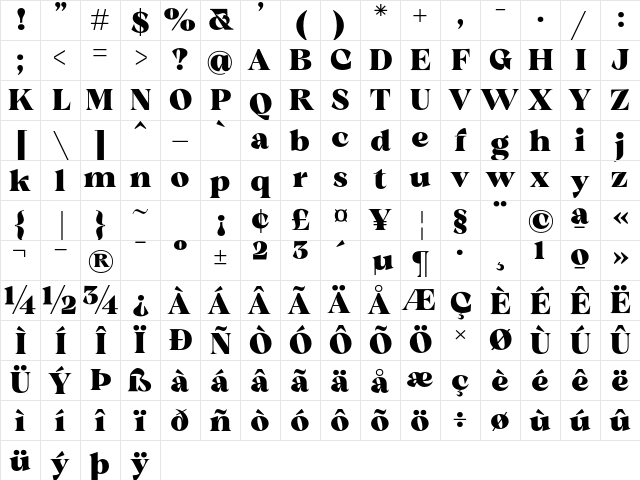
Complete Winzer Serif PERSONAL USE Black Regular glyph index. Displaying only characters natively supported by Winzer Serif PERSONAL USE Black Regular font.
Winzer Serif PERSONAL USE Black carries the refined structure of traditional serif typography, with bracketed terminals and considered proportions that communicate credibility and craft.
Pro Tip: Use Winzer Serif PERSONAL USE Black for editorial body copy and considered headline work. Pair with a neutral sans for UI elements or captions to create a classic hierarchy.